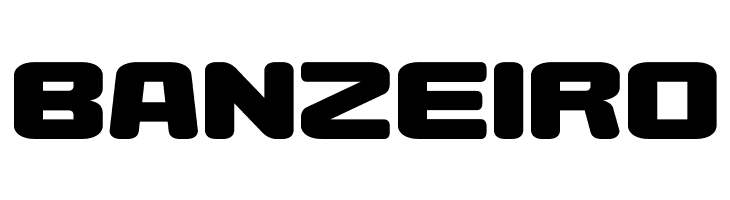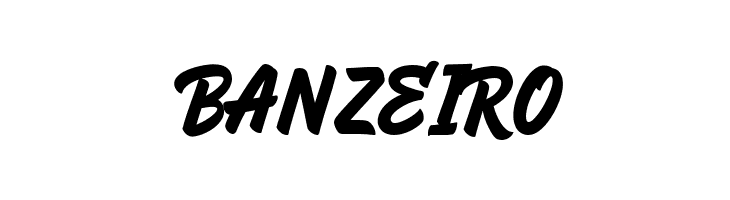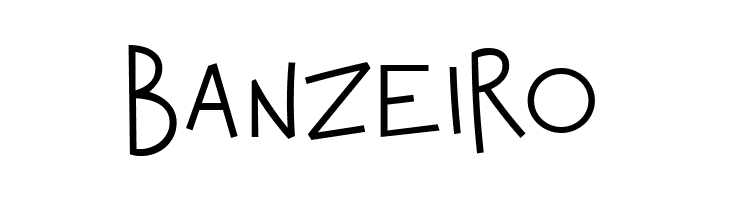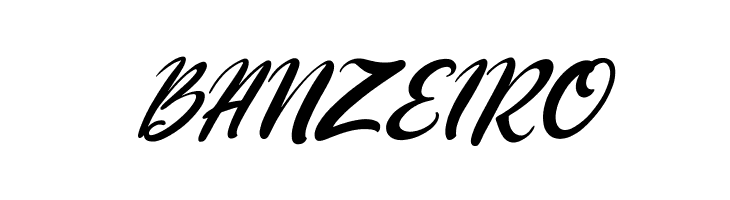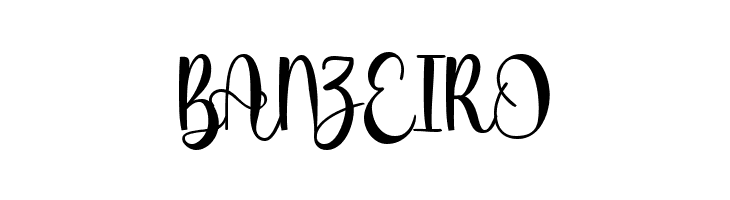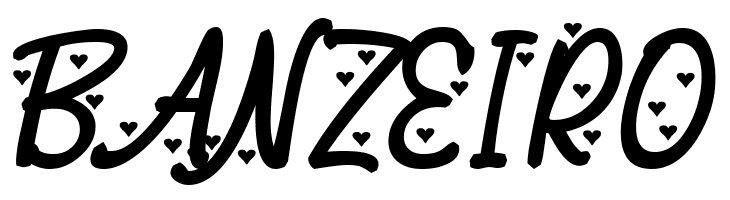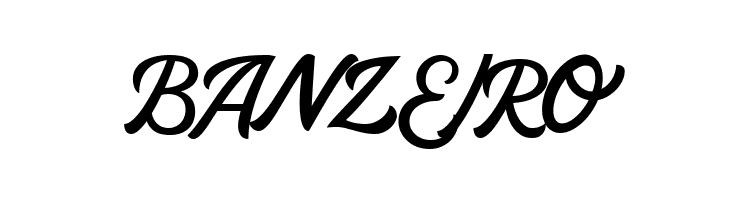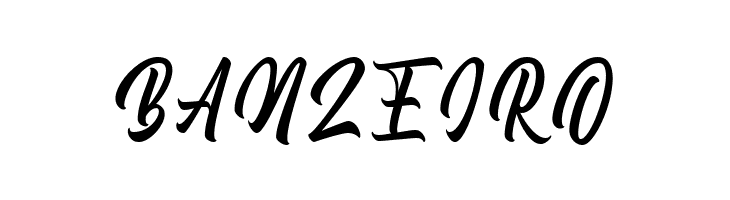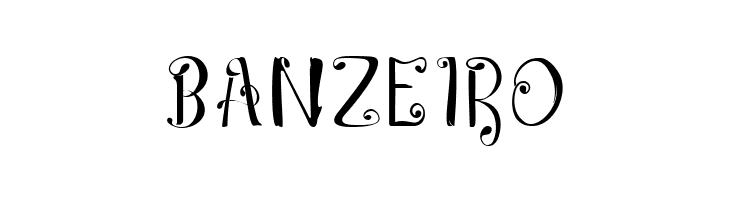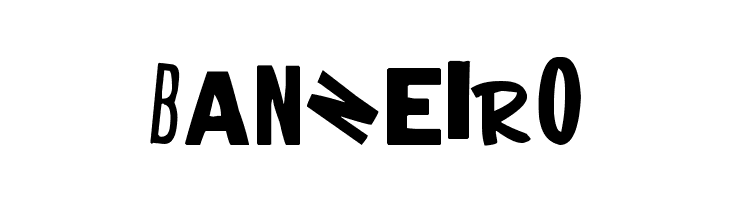
• Heyam
A playful, bold font with rounded, thick strokes and a cartoonish style.
• heyboy!heygirl!
A playful, bold, and quirky hand-drawn font with irregular shapes.
• HeyBrights Regular
• HEYCAZ-Regular
A bold, playful font with rounded edges and a bubbly appearance.
• HeycoldDEMO
A bold, playful script font with thick, rounded strokes and close character spacing.
• Heydex
A bold, brush-style font with dynamic, expressive strokes.
• Heydhar
A bold, brush-style font with an energetic and artistic flair.
• Heydings Controls
• Heydings Icons
• Heyhoo
A playful, handwritten font with bold, rounded characters and a casual, friendly appearance.
• HeyKiddodemo
A playful, hand-drawn font with irregular, whimsical characters.
• Heykido Regular
A dynamic and flowing script font with elegant cursive letterforms.
• Heylolly
A playful, handwritten font with a smooth, flowing style.
• Heylova Script DEMO Regular
A bold, cursive script font with smooth, connected strokes.
• Heylova Script DEMO Regular
A lively and dynamic script font with flowing, connected letterforms.
• HeyLovely-Regular
A lively, flowing script font with an elegant, handwritten style.
• HeyLovely2nd-Regular